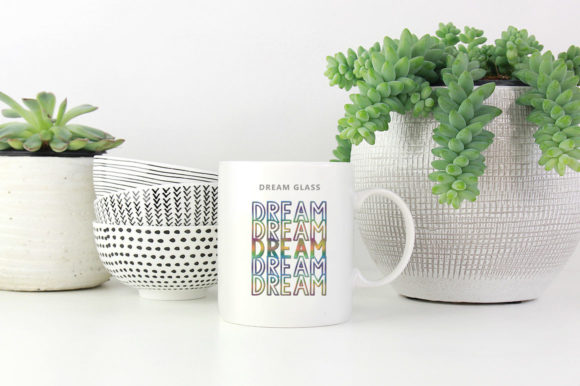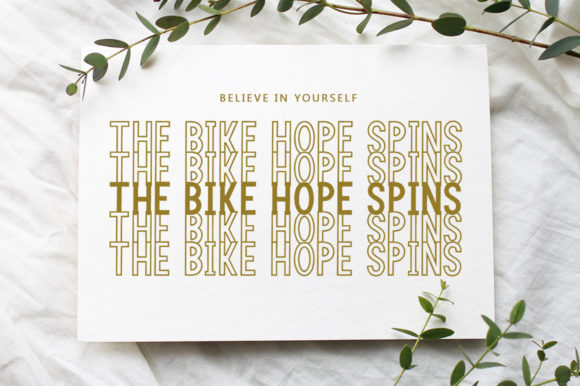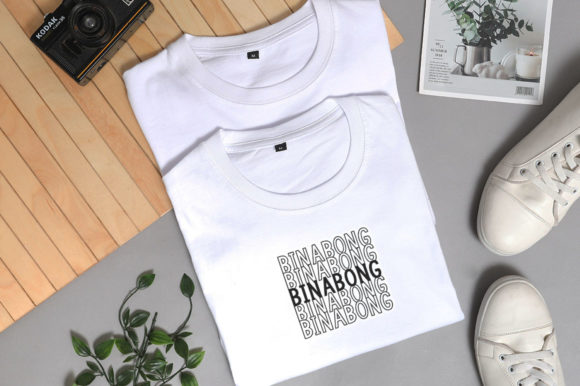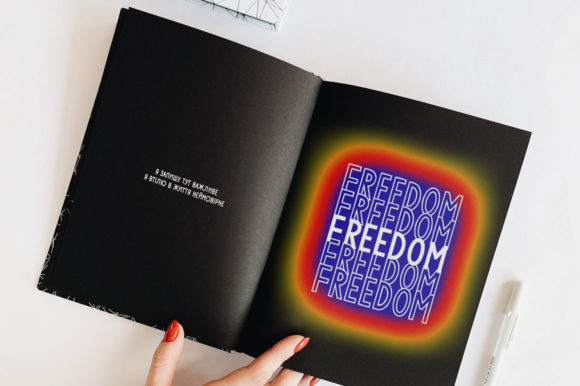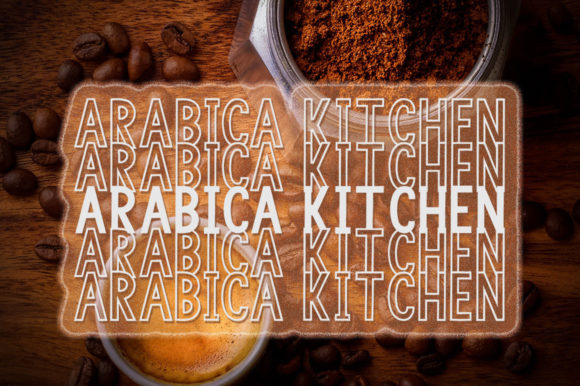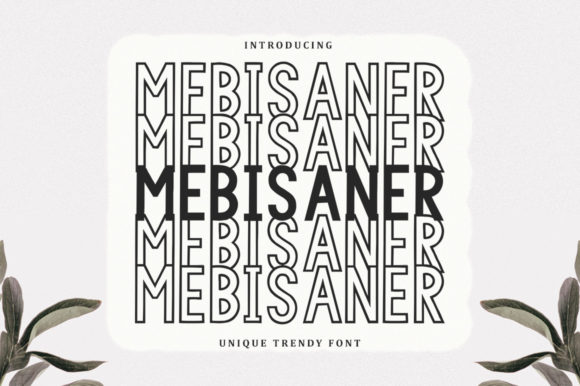
Introduction to Mebisaner Font
You’ve spent hours poring over design inspiration, and finally, you’ve nailed the concept for your next creative project. The colors are perfect, the composition is balanced, and the text is… well, that’s where things get tricky. Finding the right font to match your vision can be a tedious process, especially when you’re looking for something unique and eye-catching.
That’s where the Mebisaner Font comes in – a fun, stacked font designed to save you time and effort in your design workflow. With its high-quality design and transparent background, this font is a valuable resource for any designer looking to add some personality to their projects. And the best part? It’s available for free download, making it an accessible design resource for creatives of all levels.
Key Features of Mebisaner Font
- High-quality, free download font suitable for creative projects, perfect for designers who need a versatile design resource.
- Designed with a unique, modern aesthetic, the Mebisaner Font is perfect for designers looking to add a touch of sophistication to their creative projects.
- High-resolution font, ideal for use in both print and digital designs, including websites, social media graphics, and more.
Honest Review: Mebisaner Font
I recently had the chance to experiment with the Mebisaner Font for a creative project, and I must say it’s a great addition to any design resource. The font’s high quality is immediately noticeable, making it perfect for a wide range of applications.
Here are some of the things that work well with the Mebisaner Font:
- ✨ Unique and modern design style that adds a touch of elegance to any text
- ✨ Great for creating visually appealing headings and titles
- ✨ Supports transparent background, allowing for seamless integration with other design elements
- ⚠️ Limited font sizes and styles available, which may limit its versatility in certain designs
- ⚠️ May not be suitable for large blocks of text due to its modern design style
Overall, I’m impressed with the Mebisaner Font and would definitely recommend it to designers looking for a high-quality, free design resource. Its unique design style and transparent background make it a great choice for creative projects, and the free download option is a bonus.
Tips for Getting the Most Out of Mebisaner Font
To get the most out of the Mebisaner Font, use it in conjunction with other design elements, such as graphics and images. Experiment with different font sizes and colors to create a unique and eye-catching design. You can also use the Mebisaner Font in combination with other fonts to create a custom font style.
The Mebisaner Font is commonly used in a variety of design projects, including business cards, brochures, and social media graphics. It’s also a popular choice for presentations and documents, where a clear and readable font is essential.
Alternatives to Mebisaner Font
Pacifico is a high-quality, elegant script font perfect for creative projects that require a touch of sophistication. It features a transparent background, making it ideal for overlaying on images or videos. Use it for wedding invitations, branding, or any design that needs a romantic flair.
Pacifico is similar to Mebisaner Font in its elegant and refined look, but it has a more classic and timeless feel to it.